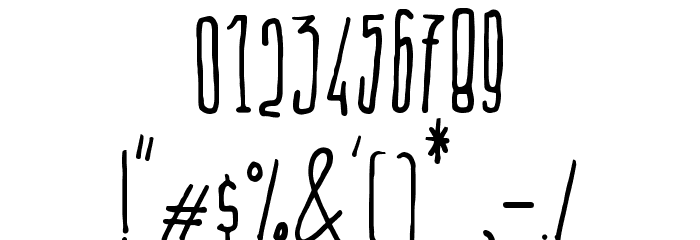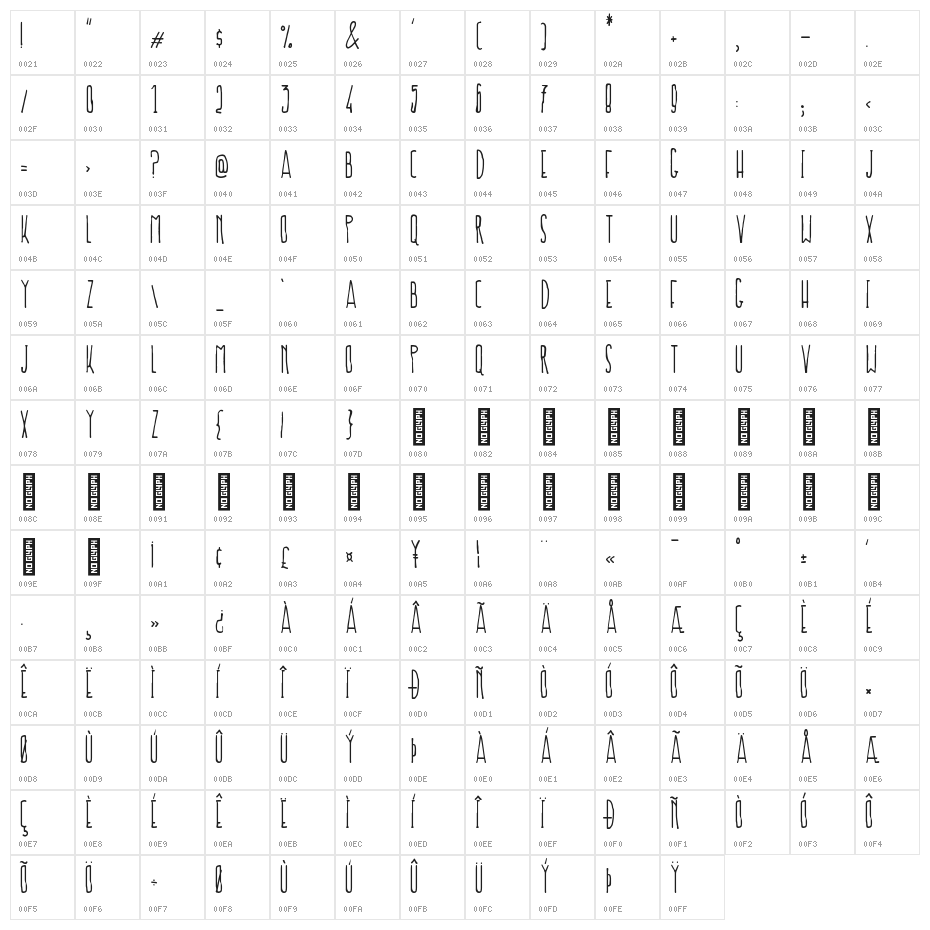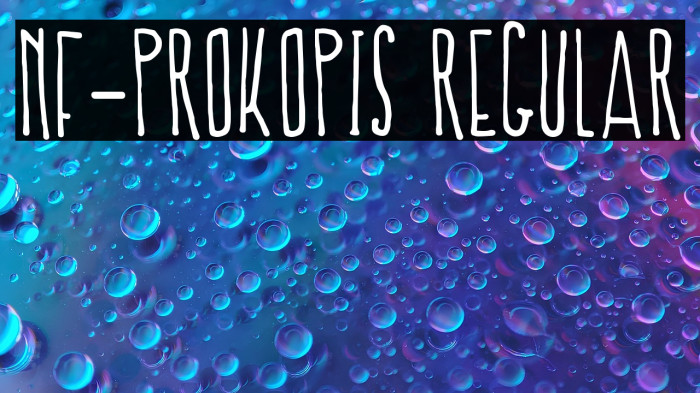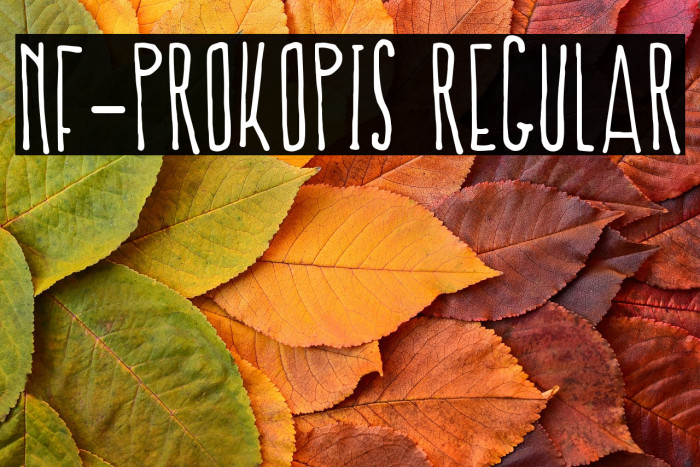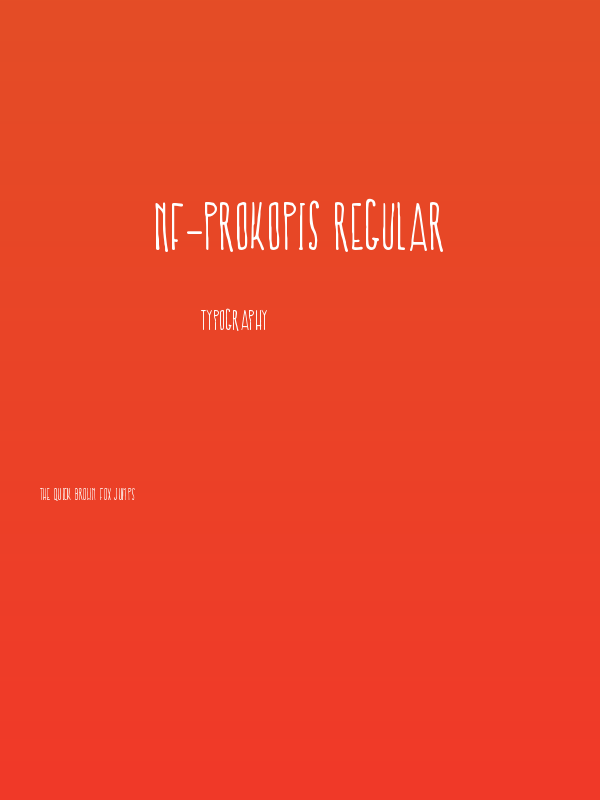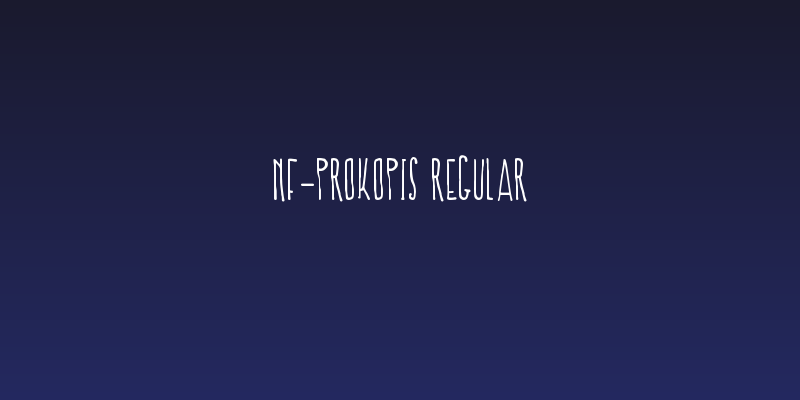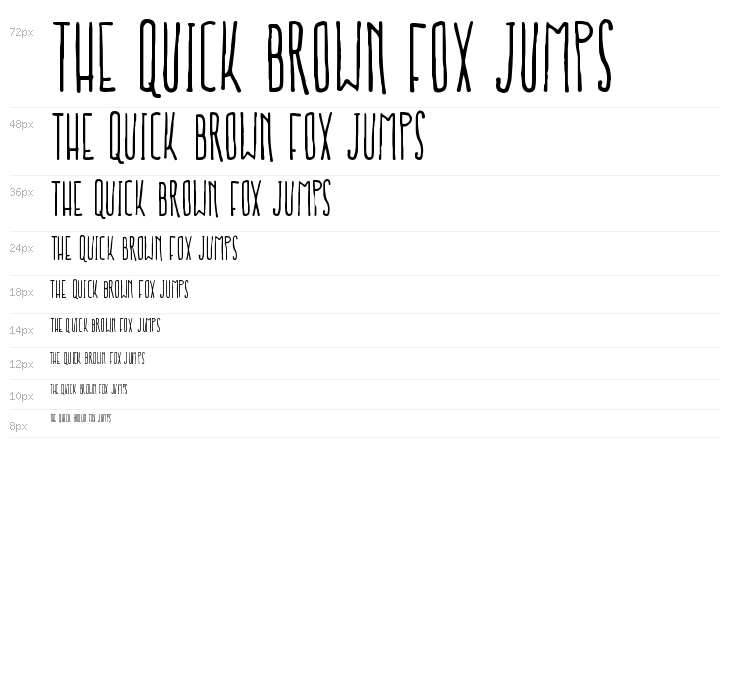
NF-Prokopis Regular Font
NF-Prokopis Regular Description
This font features a unique, hand-drawn style with elongated, slightly irregular strokes that give it a whimsical and artistic appearance. The uppercase and lowercase letters maintain a consistent height, creating a uniform look across the alphabet. The numerals and special characters follow the same design principles, ensuring cohesion throughout. The strokes are thin and slightly uneven, adding to the handcrafted feel. This font is ideal for projects that require a personal touch, such as invitations, greeting cards, or artistic posters. Its distinctive style makes it stand out, while still being legible and versatile.
| Proposed Projects | Ideal for invitations, greeting cards, artistic posters, and creative branding. |